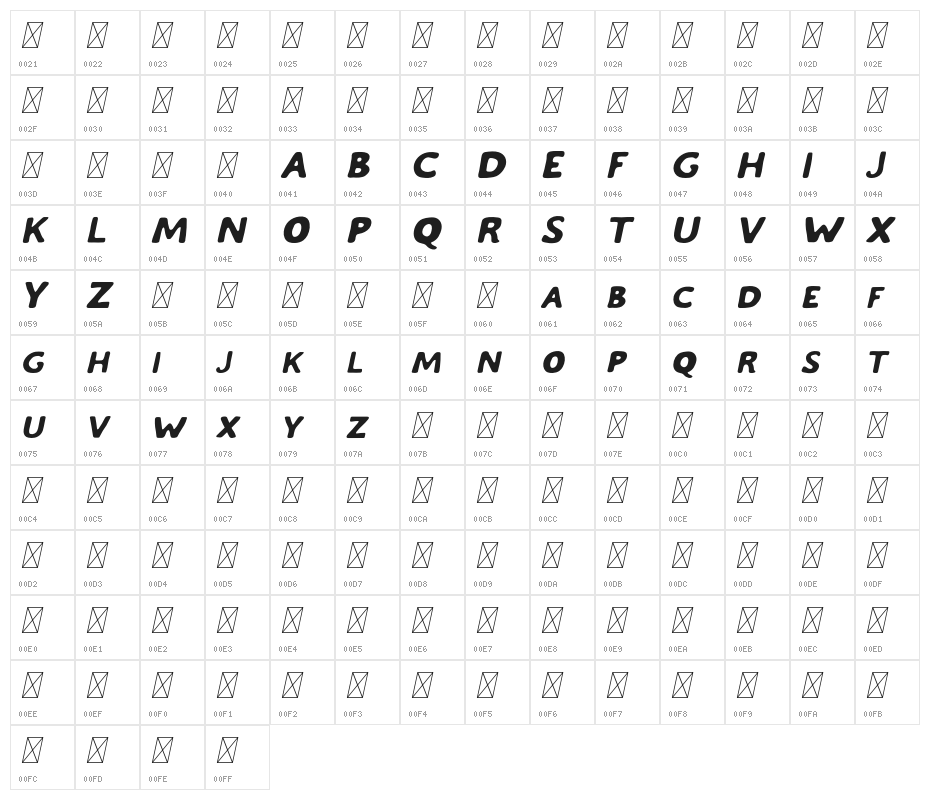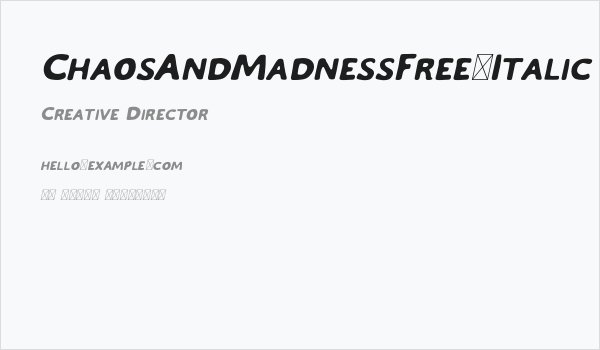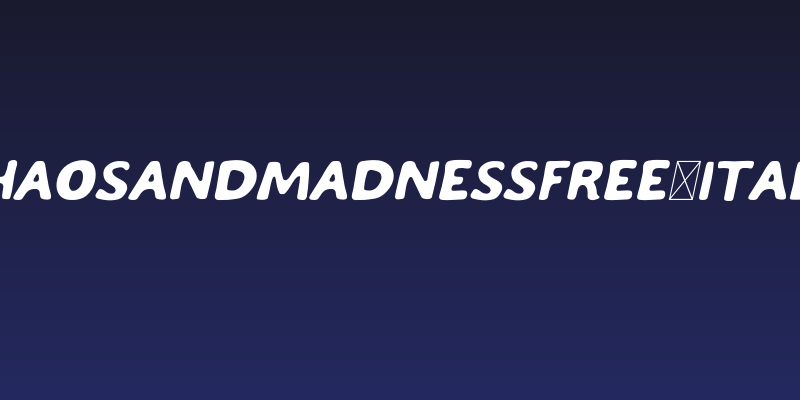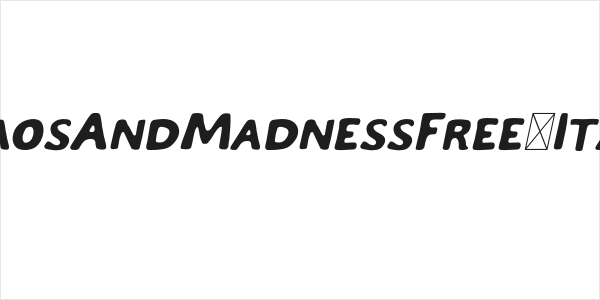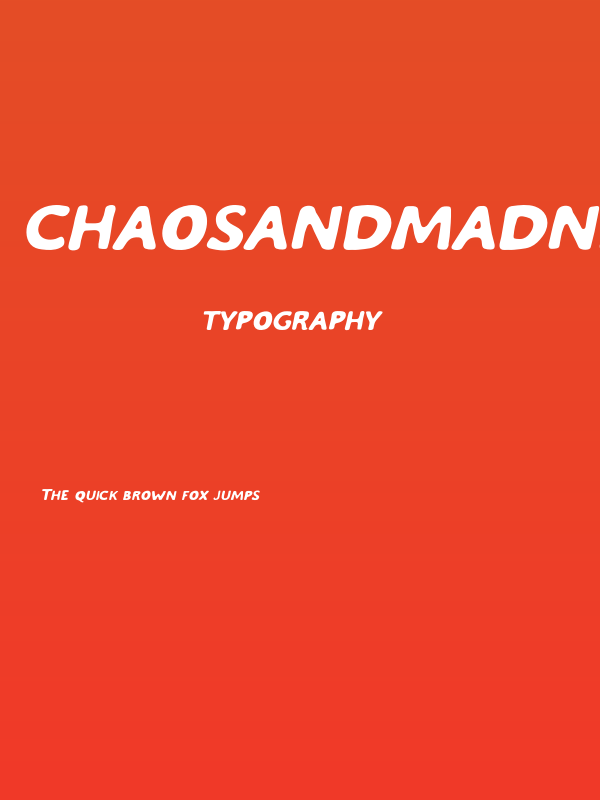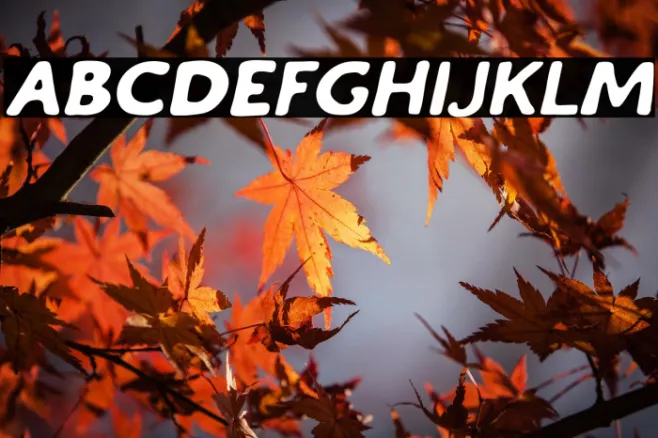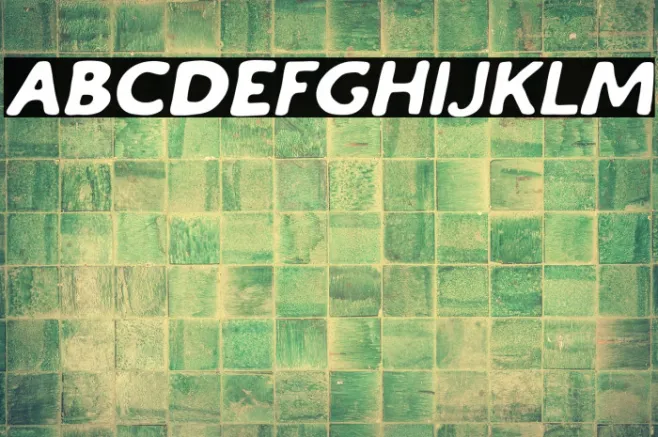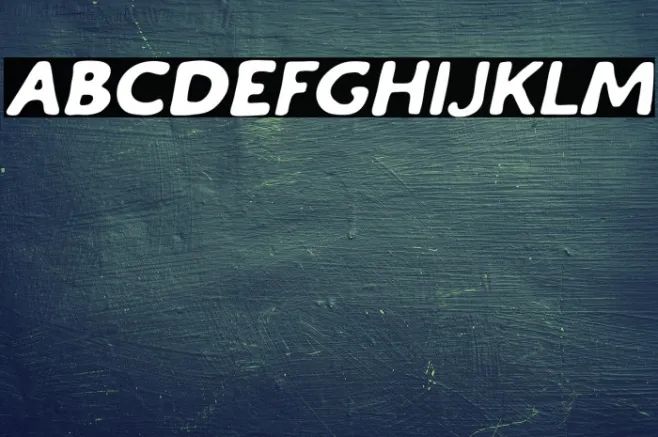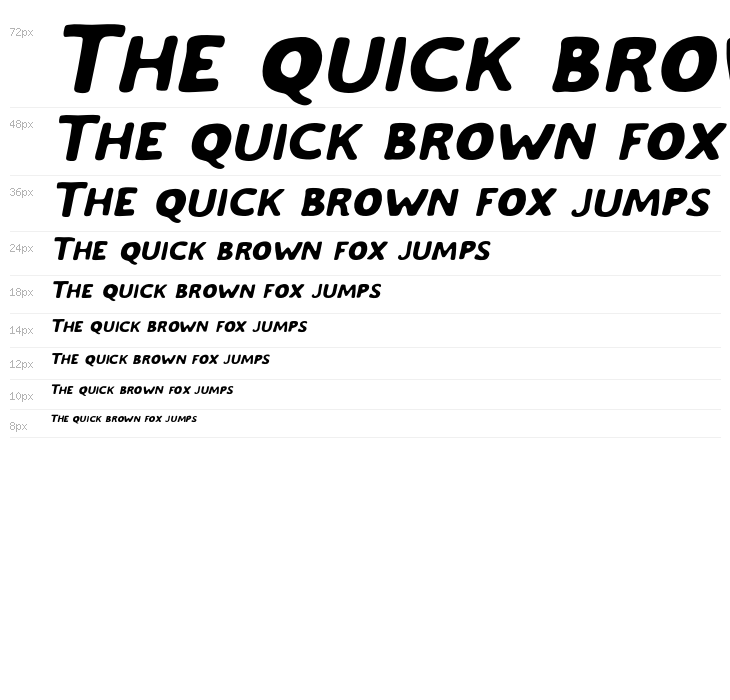
ChaosAndMadnessFree-Italic Font
This font features a bold and dynamic style with a playful and energetic appearance. The characters are slightly slanted, giving an italicized effect that adds movement and flair. The strokes are thick and rounded, contributing to a friendly and approachable look. The uppercase letters are consistent in height, while the lowercase letters maintain a uniform baseline, enhancing readability. The absence of serifs and the smooth curves make it suitable for modern and casual designs. The font's boldness ensures it stands out, making it ideal for attention-grabbing headlines or titles.